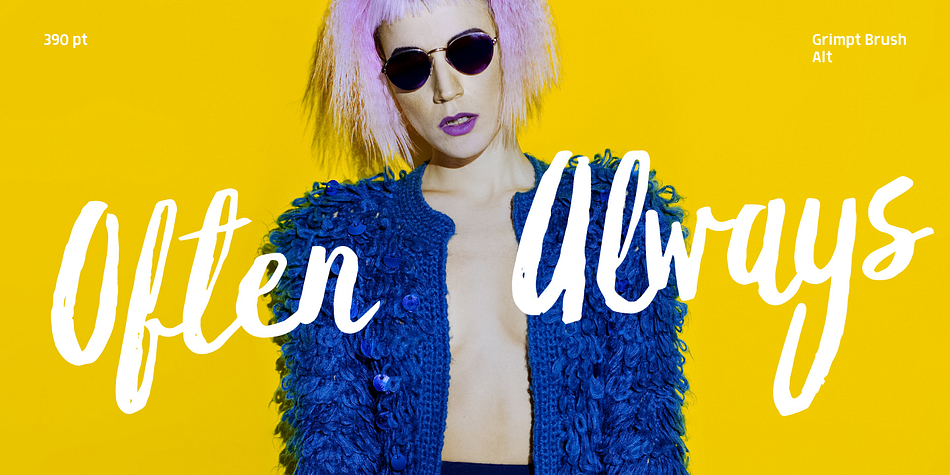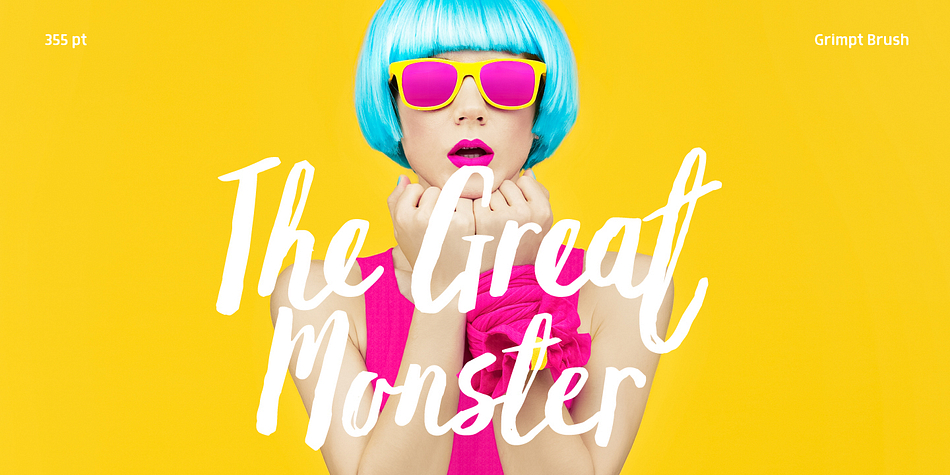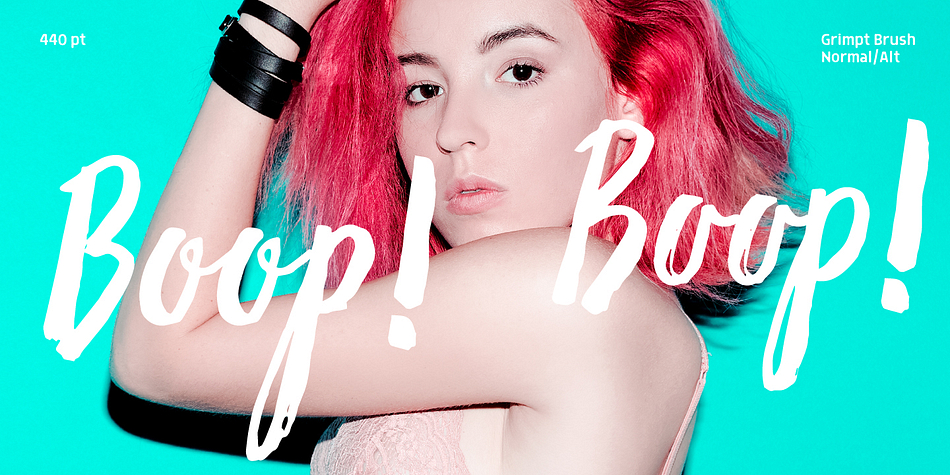
Grimpt
Grimpt is a script, brush script and display sans font family. This typeface has twelve styles and was published by Typesketchbook.
Grimpt is a fashion and modern type, made up of three sub-families. Brush (with alternate version), Print(made from the beautiful Sans-Serif font “More”), and Script. In these families, you can choose the original and rust styles (offers different feels in different effects). The complete family has 12 individual typefaces that serve your projects every purpose.